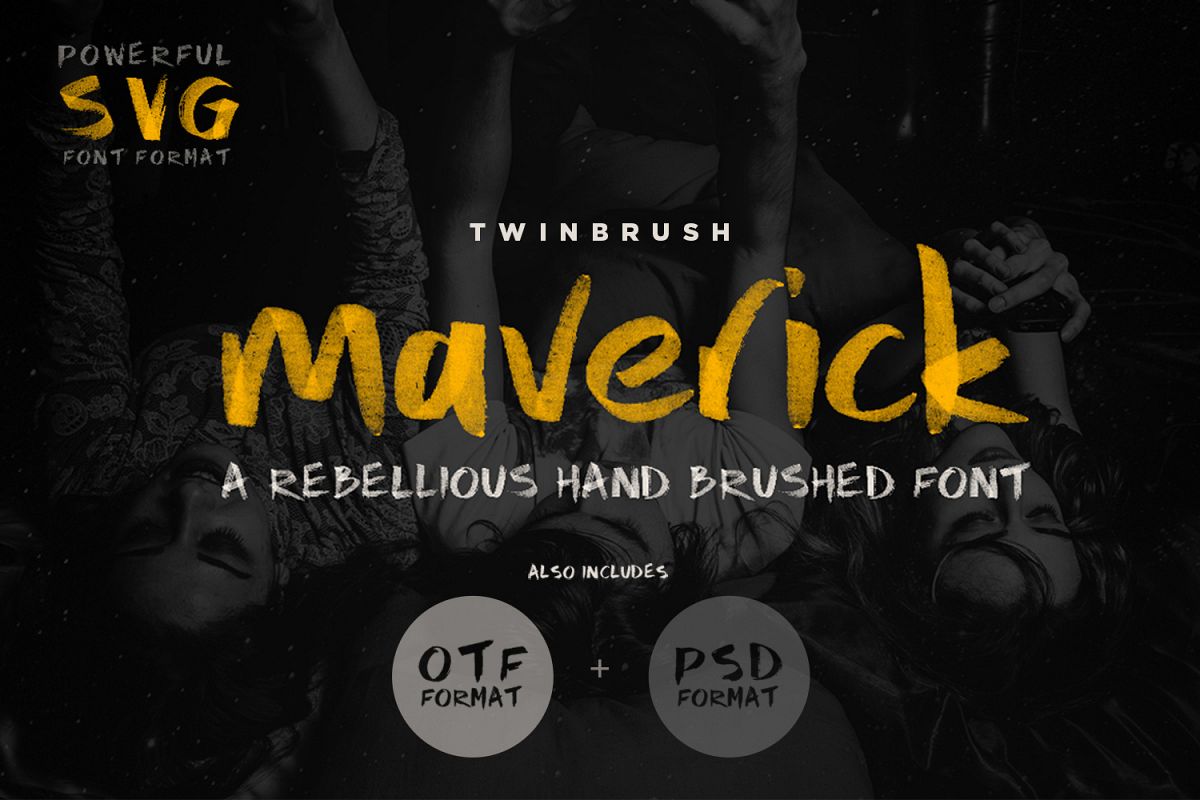
Maverick Brush and SVG Font
MaverickStandardRegular
Maverick Color is a powerful handwritten font that uses the latest OpenType-SVG Color font format and technology to capture rich, gritty texture and various levels of transparency.
Bursting with personality, Maverick is perfect for branding, logo design, high impact advertising visuals and blogs, as well as social media posts and marketing, wedding stationery and much, much more. Maverick Standard , an OTF (Open Type format) alternate to Maverick Color is also included for maximum compatibility. Maverick contains  alternate characters for all letters (upper and lowercase) and a series of ligatures to replace repeating letters, so you can give your type more personality and a more natural hand written flow.!
• Advanced OpenType-SVG Color Font format
• Rich, rough texture and transparency
• Alternate characters for every letter
• Discretionary ligatures for repeated letters
• Punctuation and numerals